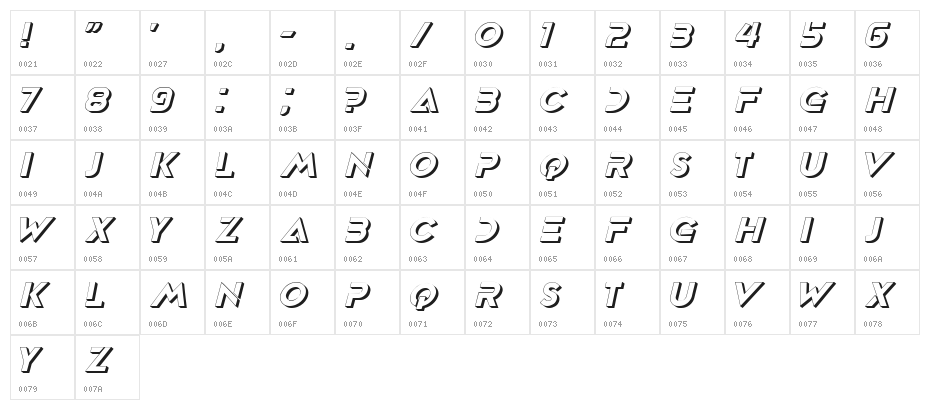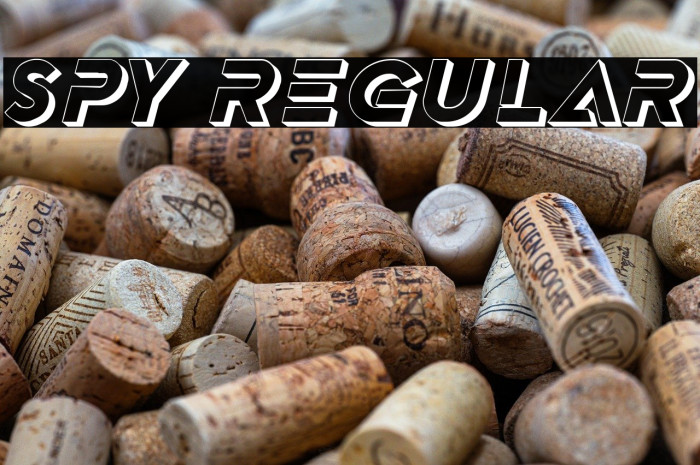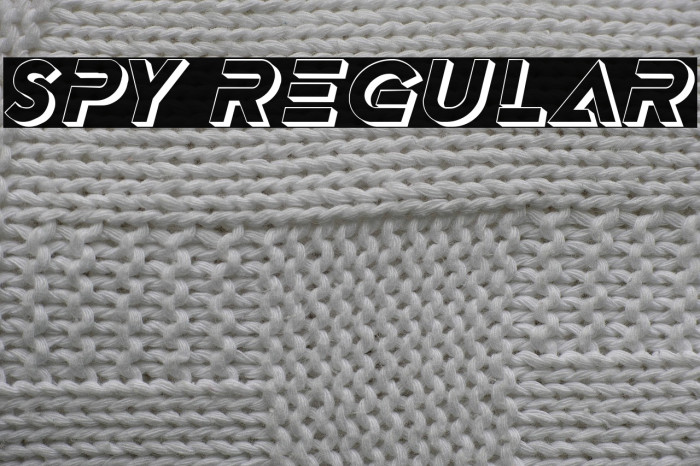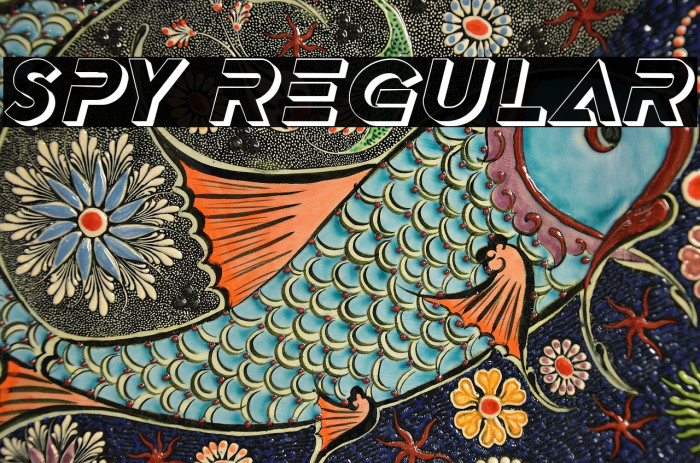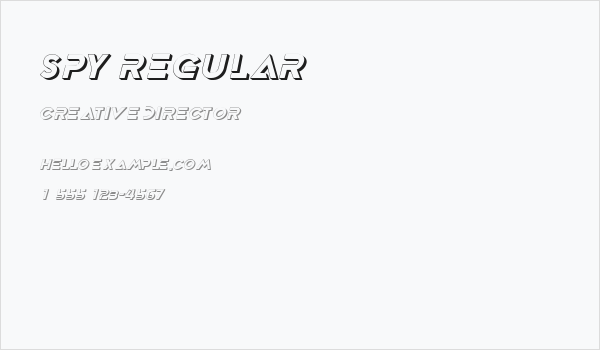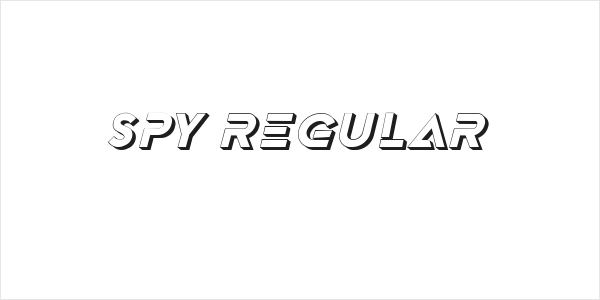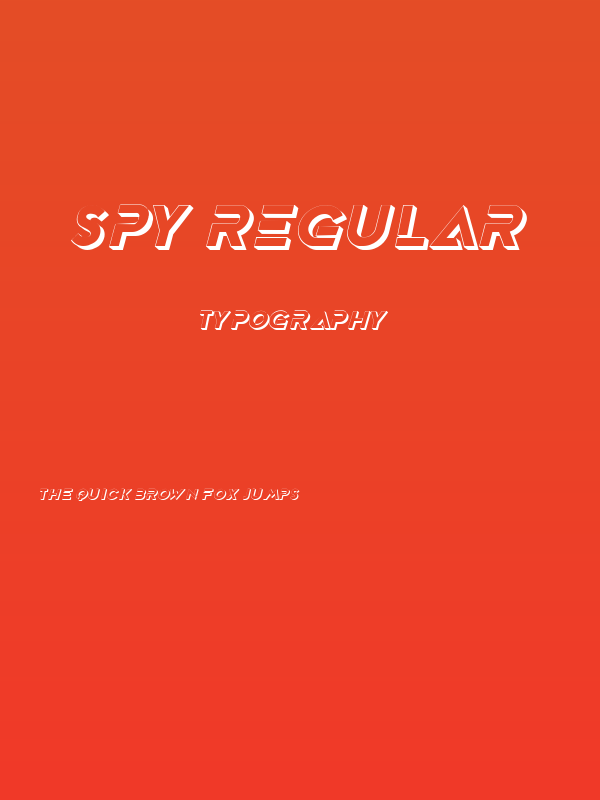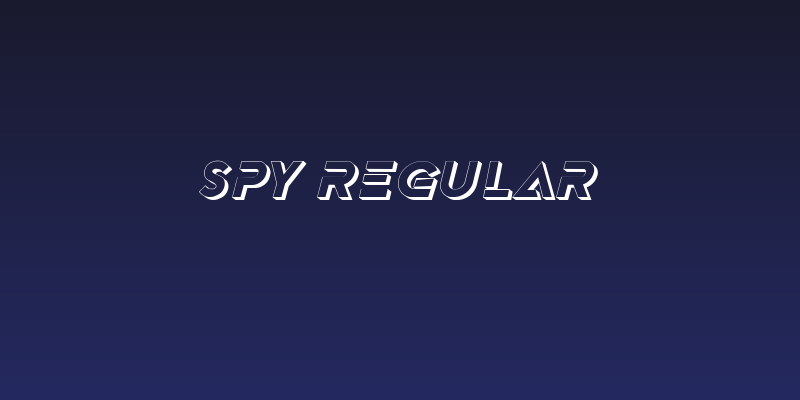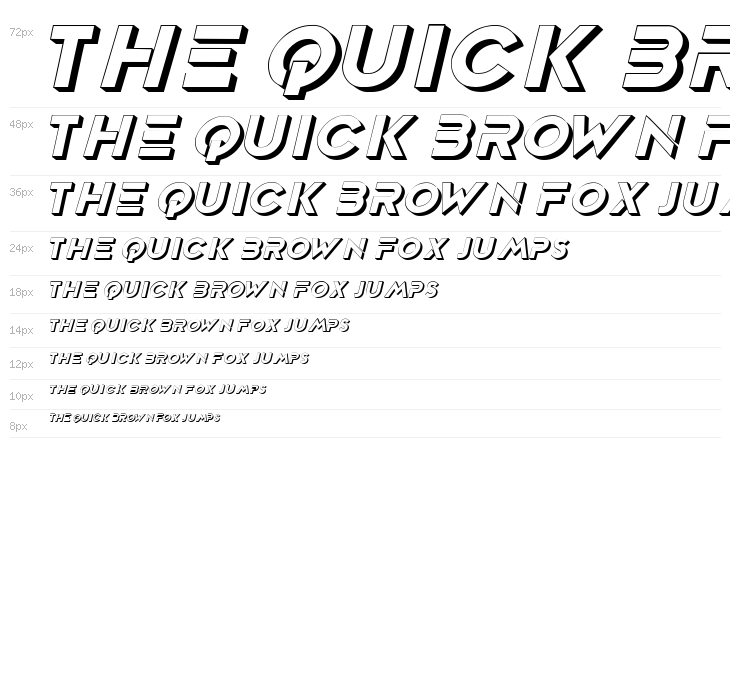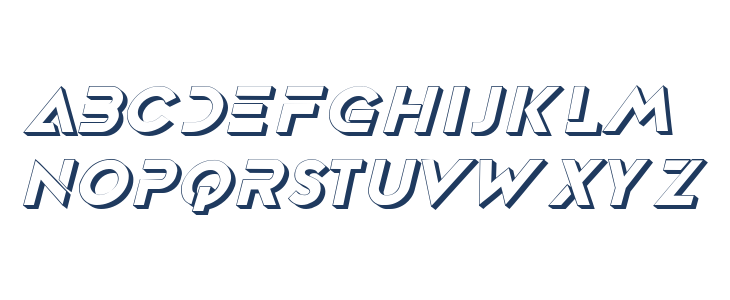
Spy Regular Font
Spy Regular Description
This font features a bold, three-dimensional design with a shadow effect that gives it a dynamic and futuristic appearance. The characters are uppercase and have a geometric structure, with sharp angles and clean lines. The shadowing adds depth, making it ideal for eye-catching designs. The font maintains a consistent weight throughout, ensuring readability while still providing a unique visual impact. Its style is reminiscent of retro-futuristic aesthetics, making it suitable for projects that require a bold and modern look.
| Proposed Projects | Ideal for posters, logos, video game graphics, and any project needing a futuristic or retro-futuristic theme. |